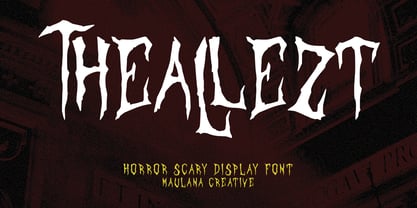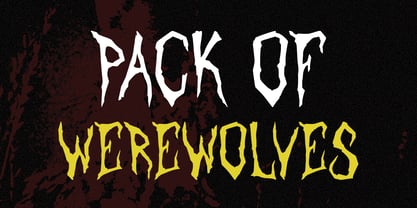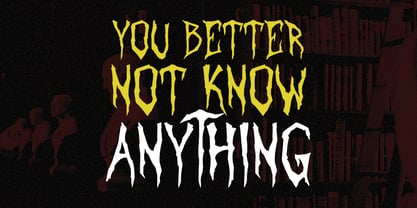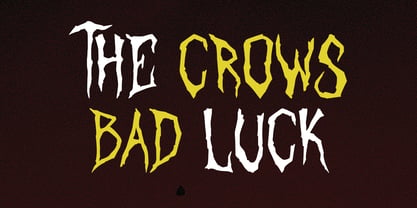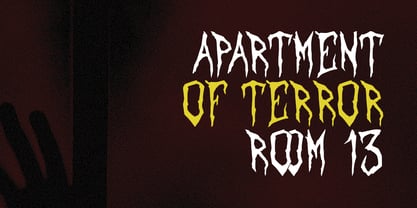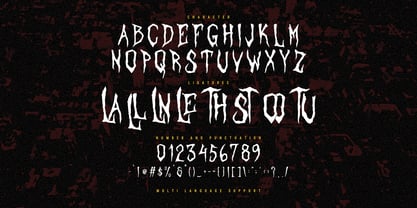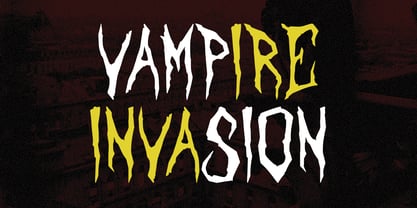
MC Theallezt
by Maulana Creative
The MC Theallezt Font Family was designed by Gilang Maulana and published by Maulana Creative. MC Theallezt contains 1 styles. More about this family
Give your designs an authentic brush handcrafted feel. "Theallezt Horror Scary Display Font" is perfectly suited to signature, stationery, logo, typography quotes, magazine or book cover, website header, flyer, clothing, branding, packaging design and more.
Designers: Gilang Maulana
Foundry: Maulana Creative